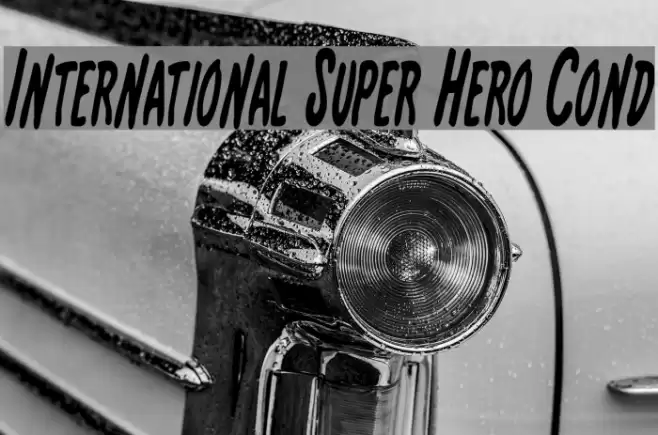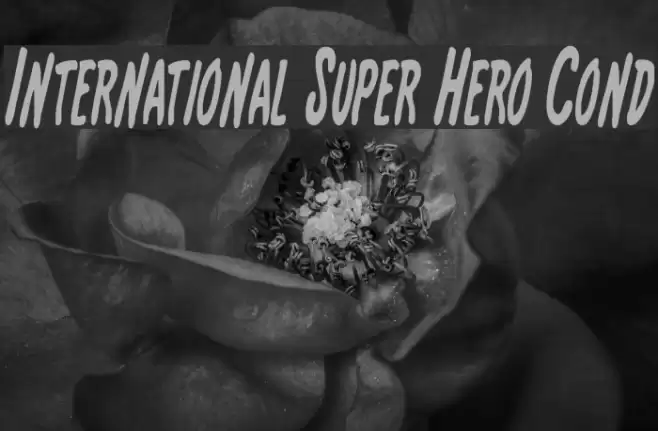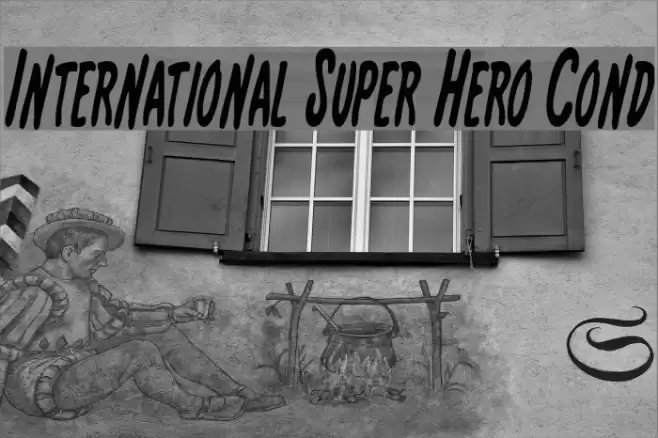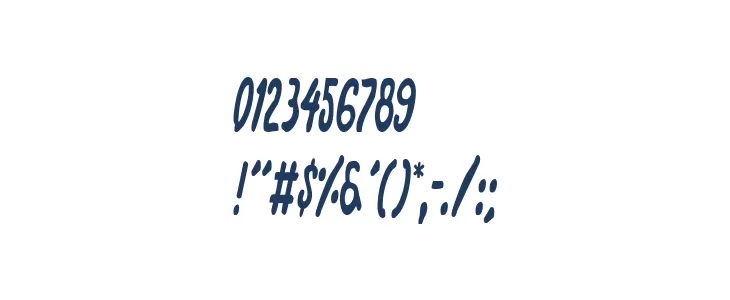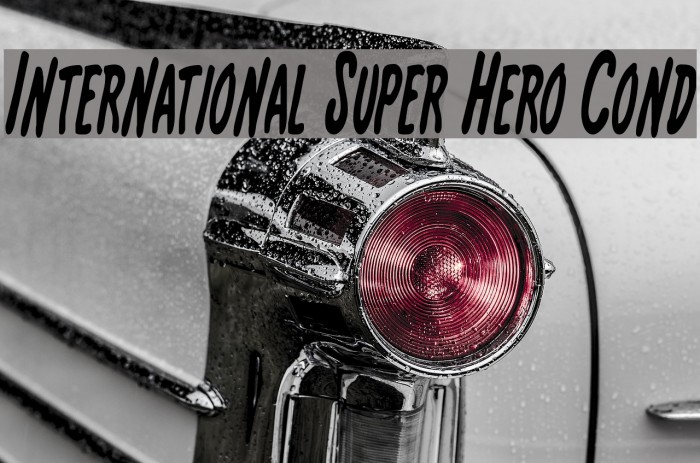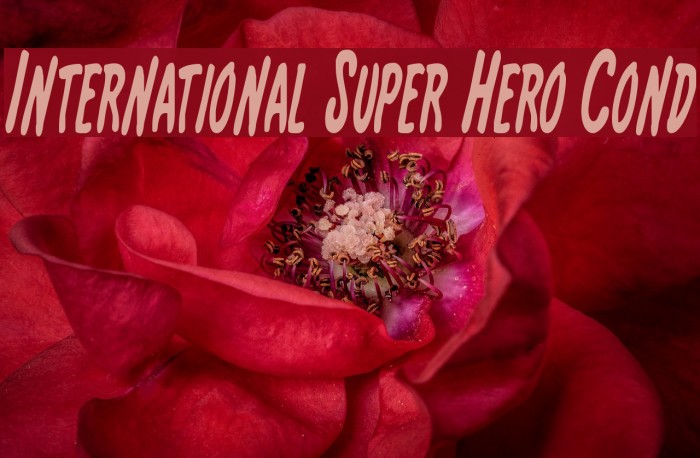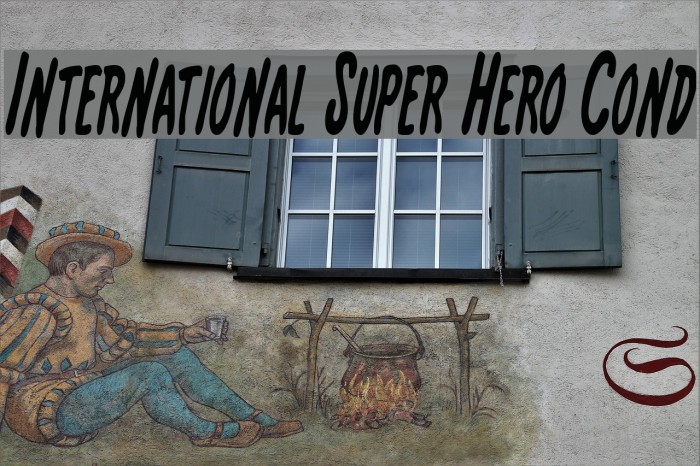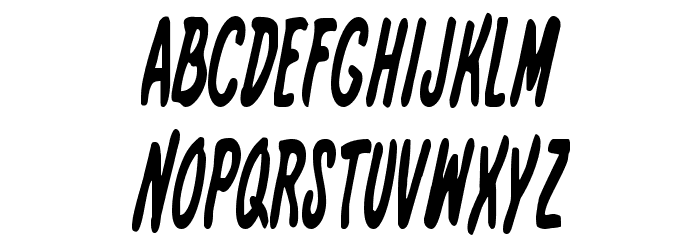
International Super Hero Cond Font
International Super Hero Cond Description
This font features a bold and dynamic style with a condensed appearance. The letters are slightly slanted, giving it an energetic and playful feel. The strokes are thick and consistent, providing a strong visual impact. The uppercase and lowercase letters maintain a cohesive look, with rounded edges and a smooth flow. Numbers and special characters are designed to match the overall style, ensuring versatility across different uses. The font's boldness and condensed form make it ideal for attention-grabbing headlines and logos.
A bold, condensed, and dynamic font with a playful slant from Handwritten fonts.
- Proposed Projects: Ideal for comic book titles, superhero-themed designs, posters, and branding that requires a bold statement.